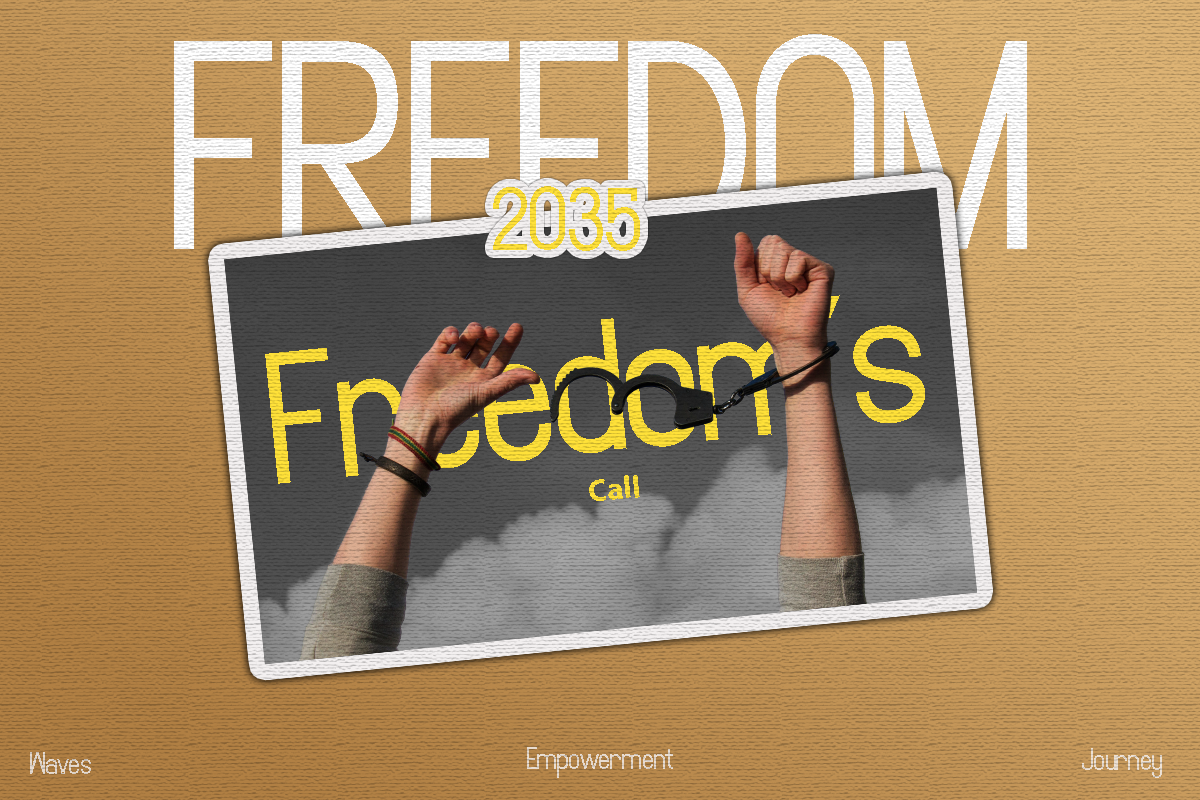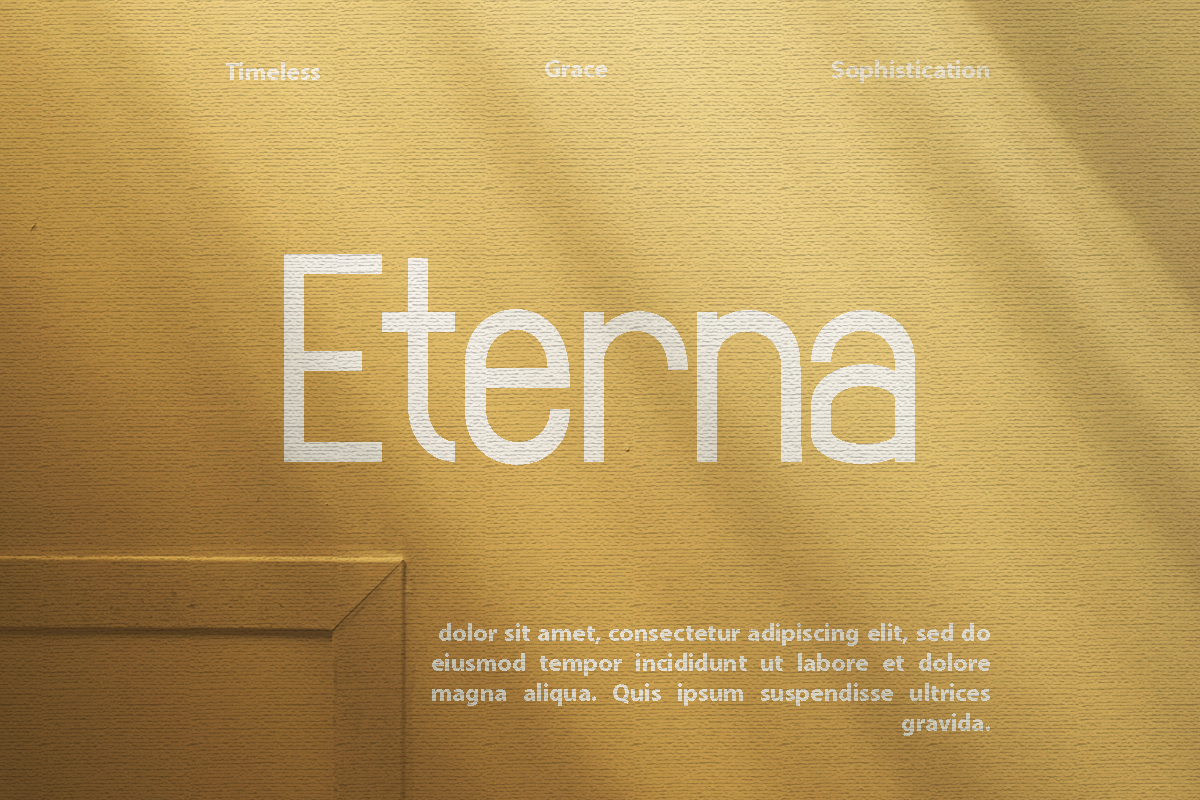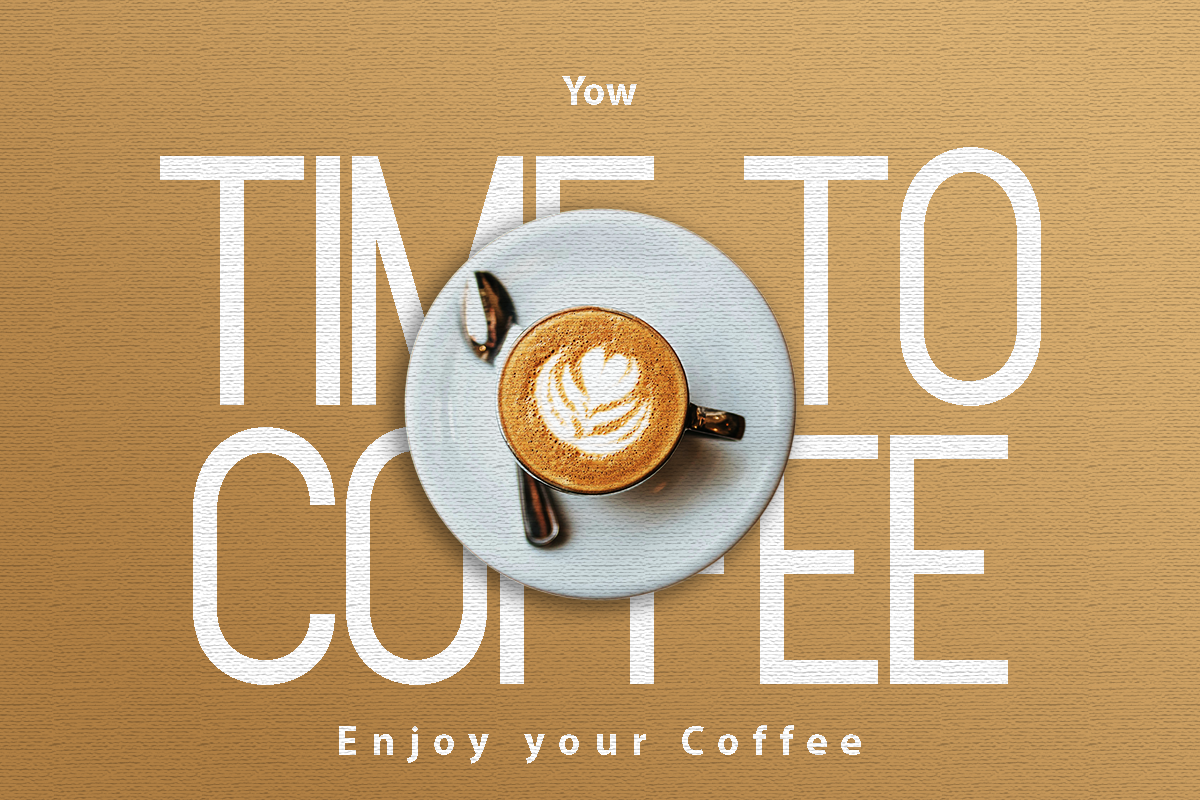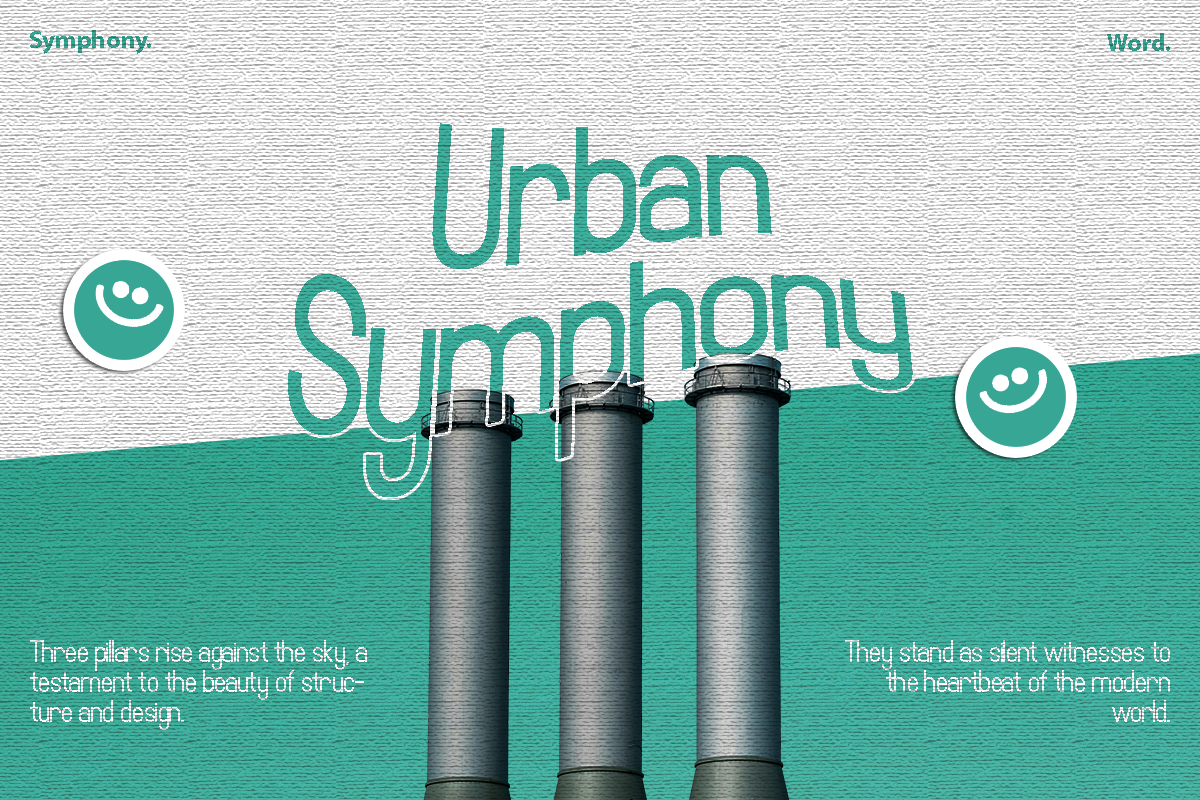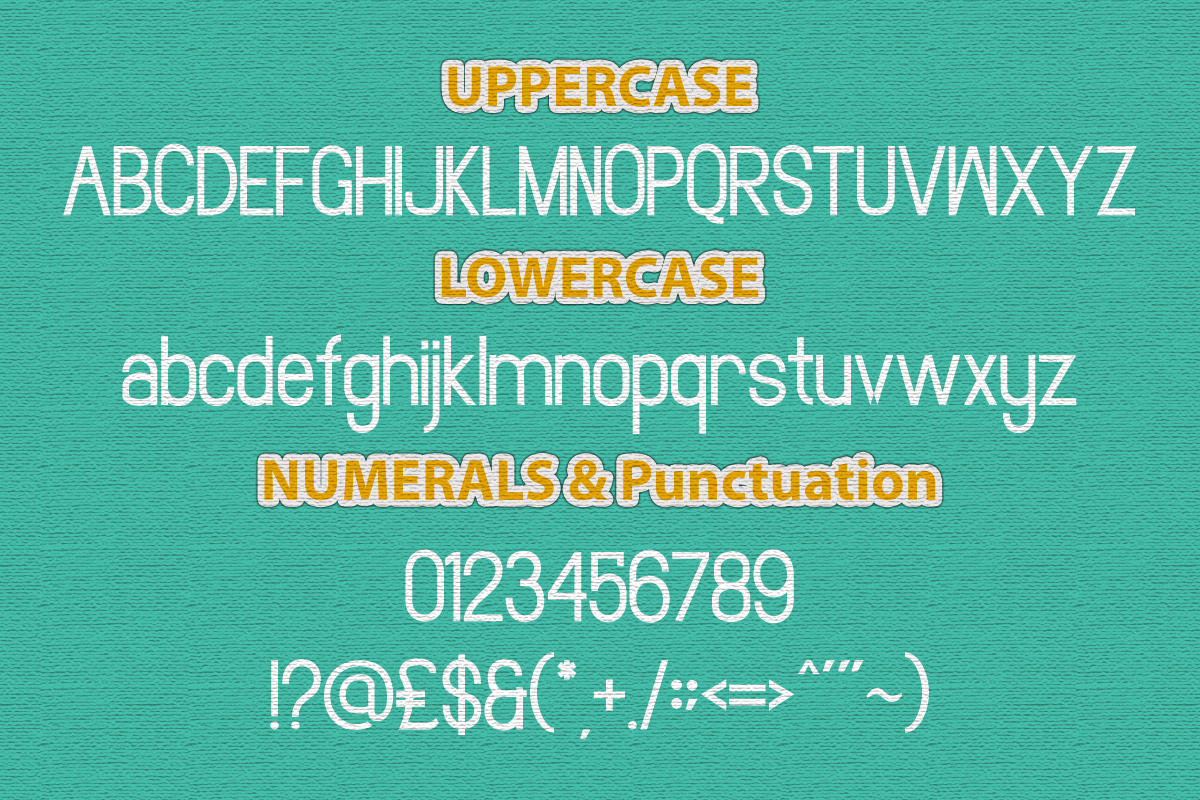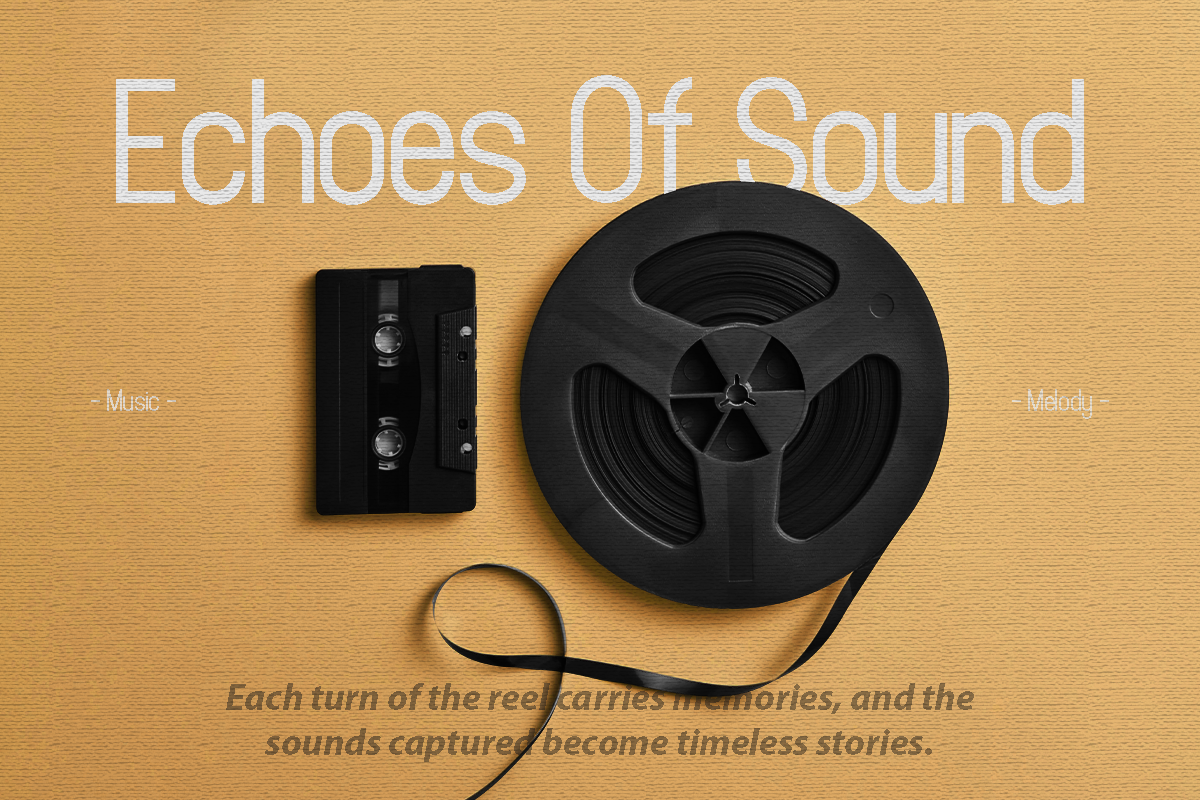
Gladence – Condensed Tall Sans Serif
Gladence is a tall and condensed sans serif typeface designed with clean lines and a strong vertical rhythm. Its minimalist letterforms create a sleek, modern aesthetic that works perfectly for impactful headlines, branding, posters, and editorial layouts. With its slim proportions and balanced geometry, Gladence brings clarity and elegance to contemporary design projects.
This versatile font is ideal for both digital and print applications, making your designs stand out with a refined yet assertive presence.
Font Highlights
Uppercase & lowercase letters
Numerals and punctuation
Tall, condensed sans serif style
Why Designers Love Gladence
Tall & Clean Design – Creates a striking visual impact for headlines and titles.
Modern Simplicity – Perfect for minimalist branding and editorial layouts.
Space Efficient – Condensed structure allows for bold statements in compact spaces.
Versatile Applications – Suitable for a wide range of creative and corporate uses.
Best Applications
Corporate branding and identity
Editorial layouts and magazine covers
Posters and advertising design
Modern website headers and landing pages
Product packaging and labels
Social media campaigns and minimalist graphics
Bring modern elegance and impactful verticality to your projects with Gladence — a tall condensed sans serif built for bold design statements.